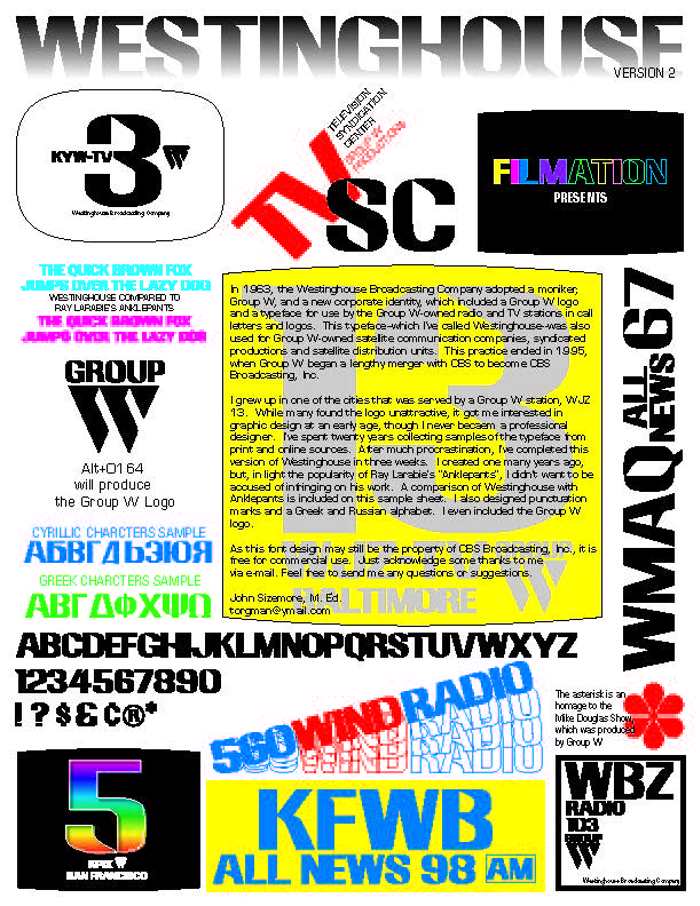
Westinghouse Font
Westinghouse Style
In 1963, the Westinghouse Broadcasting Company adopted a moniker, Group W, and a new corporate identity, which included a Group W logo and a typeface for use by the Group W-owned radio and TV stations in call letters and logos. This typeface--which I’ve called Westinghouse--was also used for Group W-owned satellite communication companies, syndicated productions and satellite distribution units. This practice ended in 1995, when Group W began a lengthy merger with CBS to become CBS Broadcasting, Inc.
I grew up in one of the cities that was served by a Group W station, WJZ 13. While many found the logo unattractive, it got me interested in graphic design at an early age, though I never became a professional designer. I’ve spent twenty years collecting samples of the typeface from print and online sources. After much procrastination, I’ve completed this version of Westinghouse in three weeks. I created one many years ago, but, in light the popularity of Ray Larabie’s “Anklepants”, I didn’t want to be accused of infringing on his work. A comparison of Westinghouse with Anklepants is included on a sample sheet, which can be obtained by request. I also designed punctuation marks and a Greek and Russian alphabet. I even included the Group W logo.
It's an excellent expansion of Ray Larabie's work. It was also used for the short-lived game show "On the Cover", in which Group W had no part: http://gameshows.wikia.com/wiki/On_the_Cover